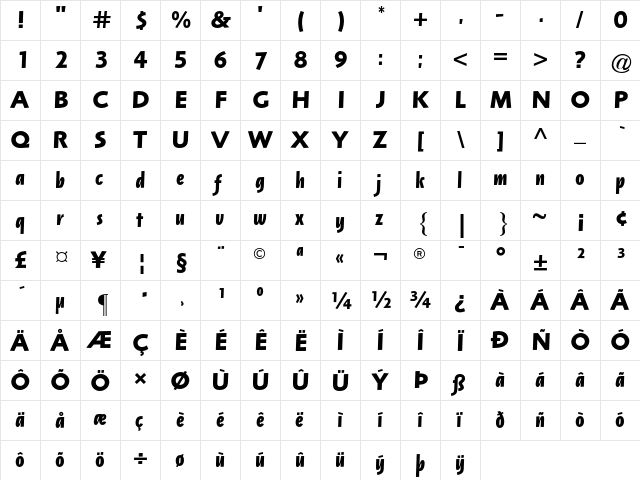
Arta AT Bold Italic Font Preview
Arta AT Bold Italic
Arta AT Bold Italic Font Details
Design Context for Arta AT Bold Typeface
Arta AT Bold offers clean, dependable letterforms without strong stylistic allegiance, making it a practical choice for designers who need flexibility. The dynamic lean of this cut emphasises speed and emphasis in any layout. The heavy weight commands attention and anchors typographic hierarchies.
Pro Tip: Use Arta AT Bold for emphasis, pull quotes, and subheadings where its slanted energy can add rhythm to the layout.